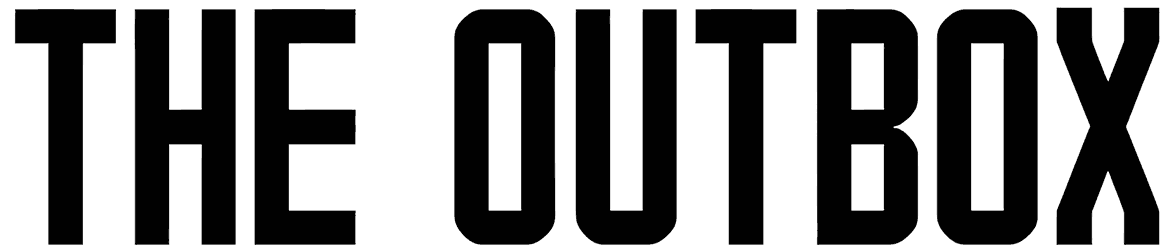
The Outbox St Font
Deep down, we all know that some kind of graphic content, such as posters, book covers, magazines, video game banners, and social media posts, needs a magical sans serif such as The Outbox St that brings this kind of artwork to a higher level. Although it doesn’t support lowercase letters, it can add a sense of momentum, professionalism, jauntiness, and comfort.